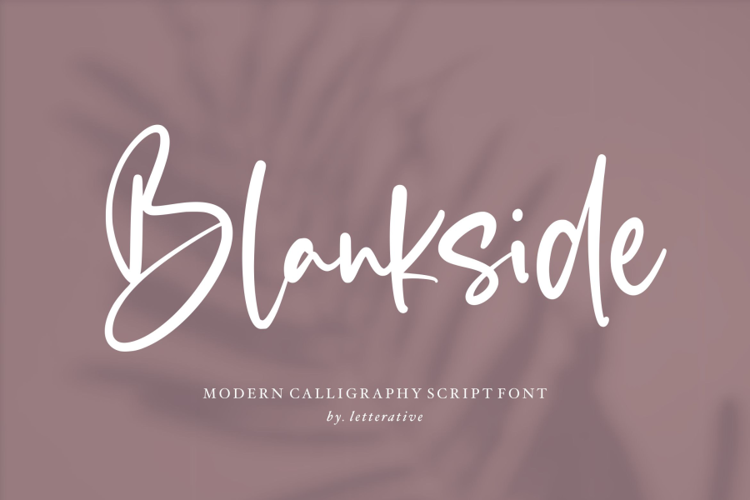
Blankside Font
Blankside is a Modern Calligraphy Font
Blankside is perfect for product packaging, branding project, megazine, social media, wedding, or just used to express words above the background.